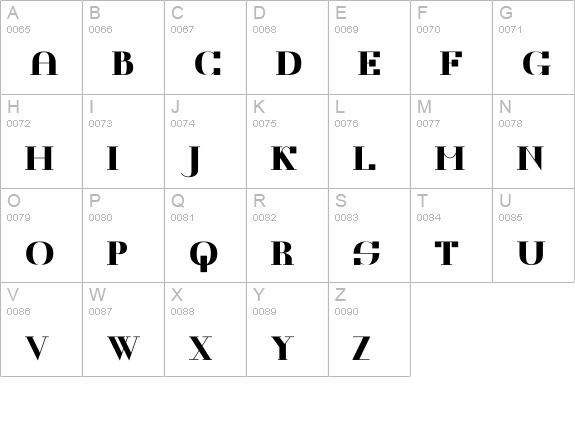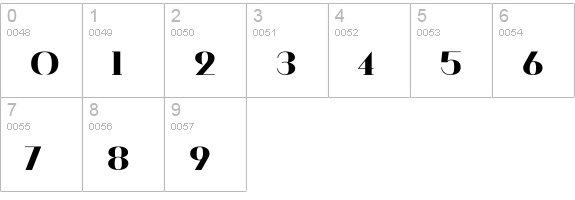
Royalty DaMa Obese Font Details
Royalty DaMa Obese font is a stunning display typeface that exudes elegance and sophistication. Its bold and extravagant design is perfect for creating eye-catching headlines, titles, and logos. The unique combination of thick strokes and intricate details gives this font a regal and luxurious feel, making it ideal for projects that require a touch of grandeur. What's even better is that Royalty DaMa Obese font is available for free download at FontsMarket.com. This means you can easily add this majestic font to your collection without any cost. Whether you're working on a royal-themed project, a high-end brand identity, or simply looking to elevate your designs, Royalty DaMa Obese font is sure to make a statement. Download it today and bring a touch of royalty to your creations.